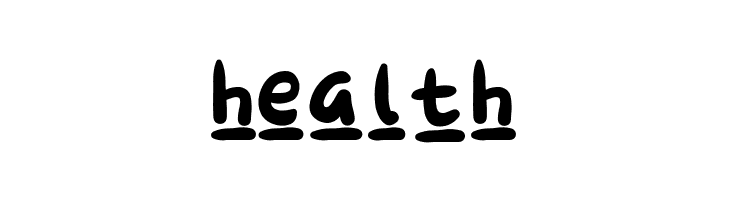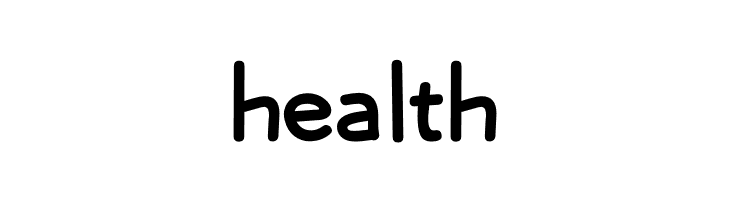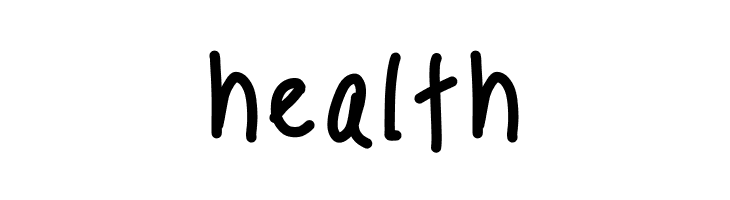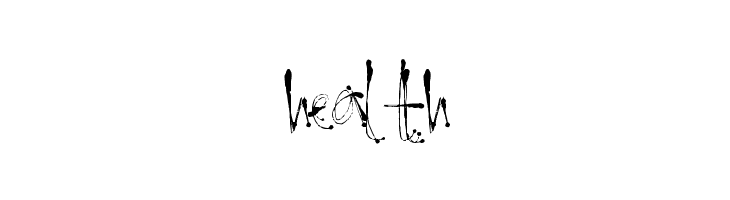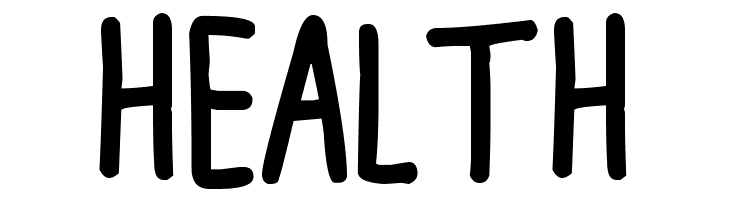
A chaotic, distressed font with irregular, jagged strokes and a raw, emotional style.
A playful, hand-drawn font with rounded edges and a casual style.
( Fonts by Darrell Flood )
A playful, handwritten font with bold, irregular strokes and a whimsical charm.
A bold, high-contrast font with elongated vertical strokes and sharp serifs.
An elegant, flowing script font with bold, cursive letterforms and decorative flourishes.
( Fonts by Typegoals Labs )
A bold, playful font with rounded, hand-drawn characters.
( Fonts by Madatype Studio )
A playful, bold, and rounded hand-drawn font.